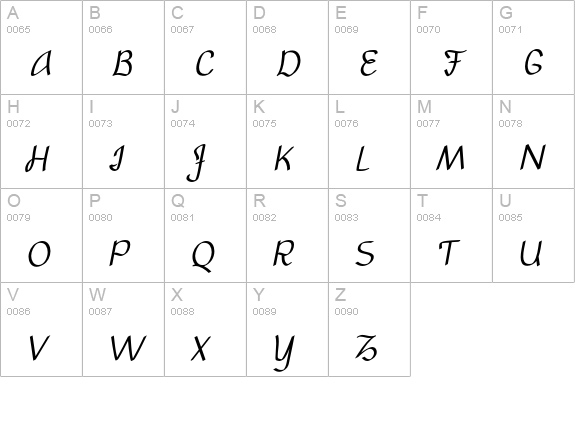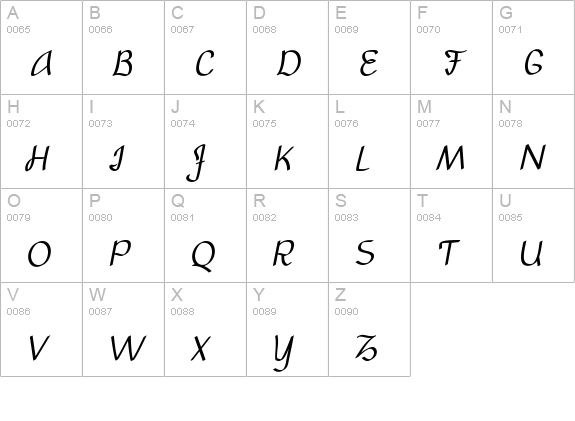
Daemon Font Details
Introducing Daemon, a captivating and versatile font that will add a touch of intrigue and sophistication to any design project. With its sleek and modern lines, Daemon embodies a sense of mystery and elegance that will instantly grab attention. This font is perfect for a wide range of applications, from stylish logos and branding materials to eye-catching headlines and editorial layouts. Its clean and distinctive letterforms are carefully crafted to ensure legibility while maintaining a unique and edgy aesthetic. But what makes Daemon truly special is its availability as a free download. Yes, you read that right! This exceptional font is freely available to download at FontsMarket.com. Now, you can enhance your designs without breaking the bank. Whether you're a graphic designer, web developer, or simply a typography enthusiast, Daemon is a must-have addition to your font collection. Its versatility and stylish appeal make it suitable for various projects, from digital designs to print materials. So don't miss out on this incredible opportunity. Head over to FontsMarket.com and get your hands on Daemon today. Elevate your designs to new heights with this free, captivating font.